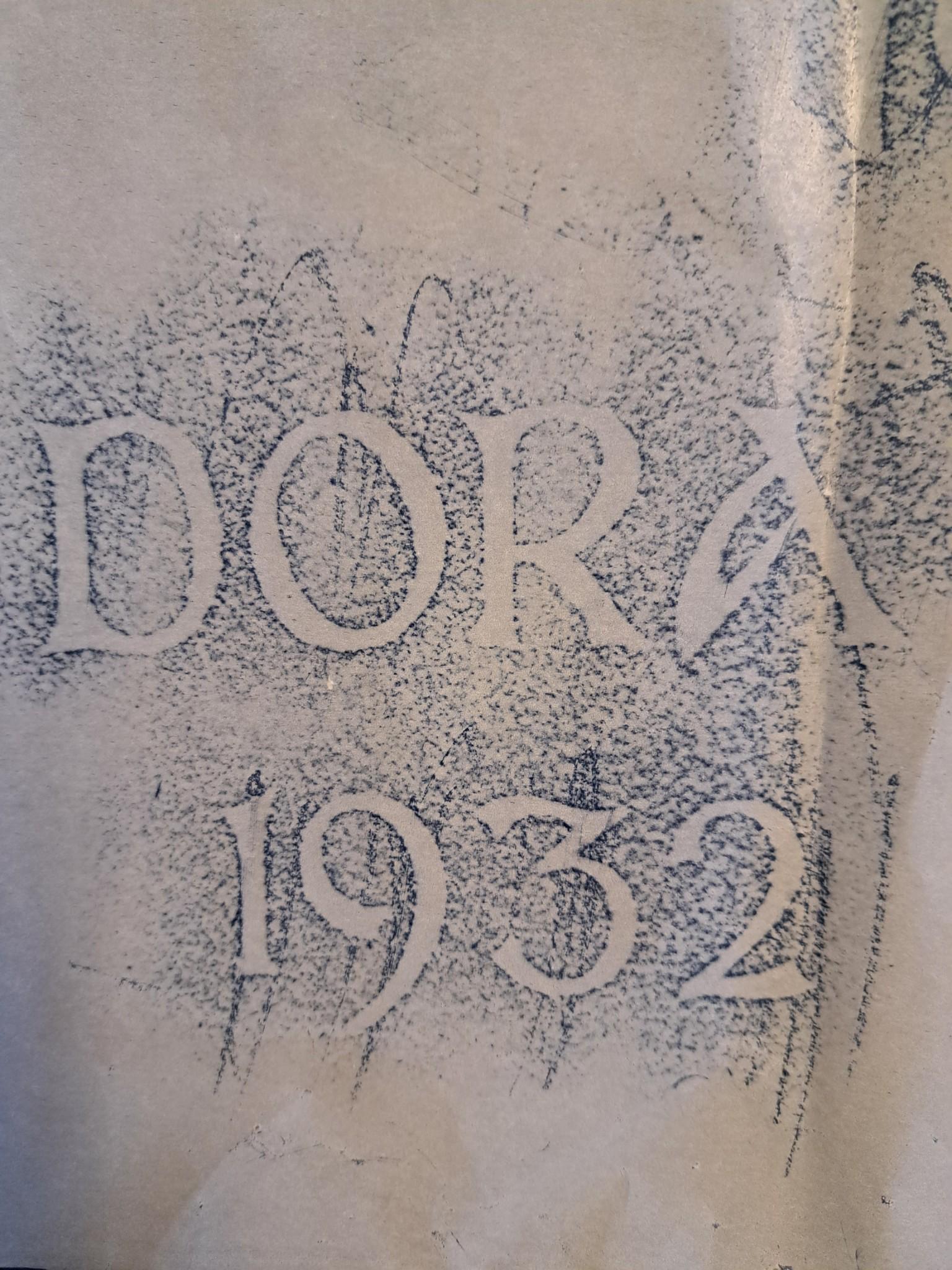
Hello, this is a variation of a Celtic font, similar to Meath FLF. After a quick search I did not find a match, and it is possible that this was drawn by hand. There were a number of similar alphabets printed in various books on lettering during the early 20th century